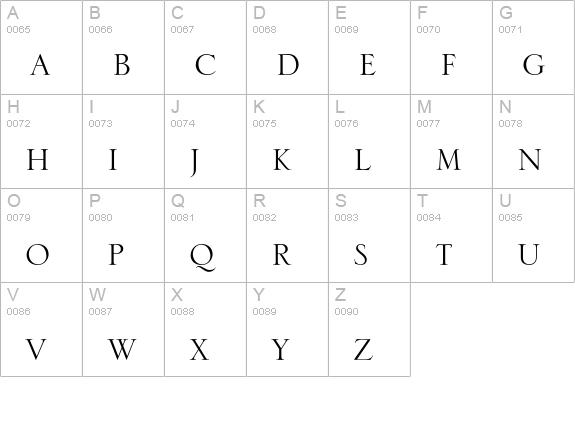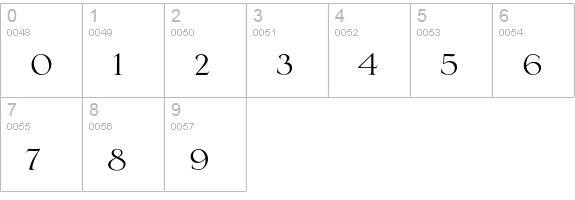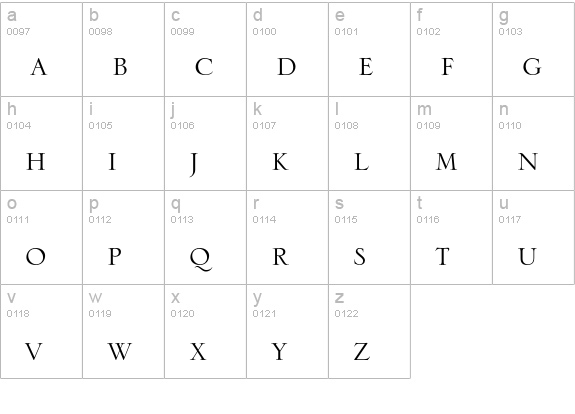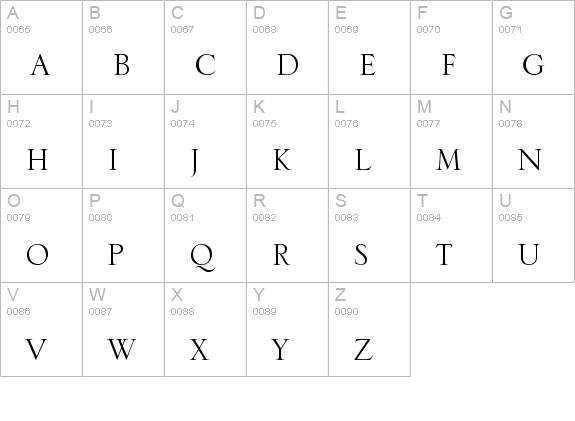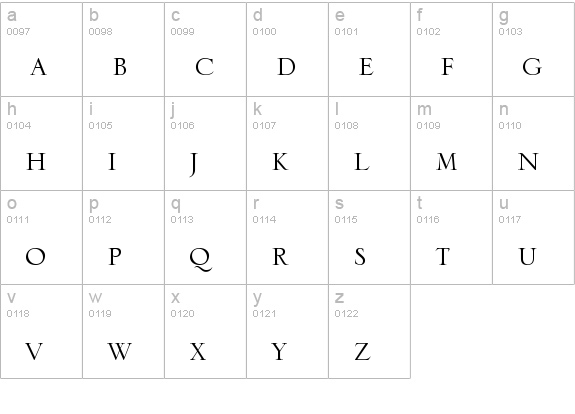
Serlio LH Font Details
Serlio LH is a captivating and versatile font that effortlessly combines elegance with modernity. Its graceful curves and refined letterforms make it the perfect choice for projects that require a touch of sophistication. Whether it's used in print or digital media, Serlio LH adds a distinctive charm that captivates the reader's attention. Designed with meticulous attention to detail, Serlio LH embodies the essence of contemporary typography. Its clean lines and balanced proportions create a harmonious visual experience, ensuring legibility and readability across various mediums. This font is an excellent choice for a wide range of applications, including branding, advertising, editorial design, and more. One of the most remarkable aspects of Serlio LH is that it is available free of charge. FontsMarket.com offers this exquisite typeface as a gift to the design community, making it easily accessible to anyone in need of a high-quality font. By providing Serlio LH for free, FontsMarket.com empowers designers to create stunning visuals without any financial constraints. Downloading Serlio LH from FontsMarket.com is a breeze. Simply visit the website and navigate to the font's page, where you can find a convenient download button. Once the font is downloaded, it can be installed on your computer or device, ready to be utilized in your design projects. FontsMarket.com ensures a seamless and hassle-free experience, allowing designers to focus on their creativity rather than worrying about font acquisition. Serlio LH is more than just a typeface; it is a powerful tool that elevates your designs to new heights. Its timeless aesthetic and ease of use make it a must-have for any designer looking to add a touch of sophistication to their work. With its availability as a free download on FontsMarket.com, Serlio LH opens up a world of possibilities, enabling designers to create visually stunning and impactful designs without any financial barriers.